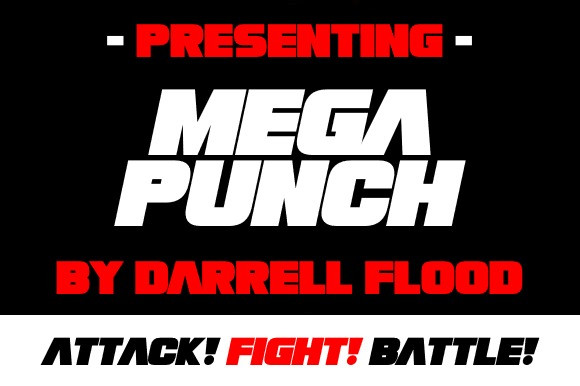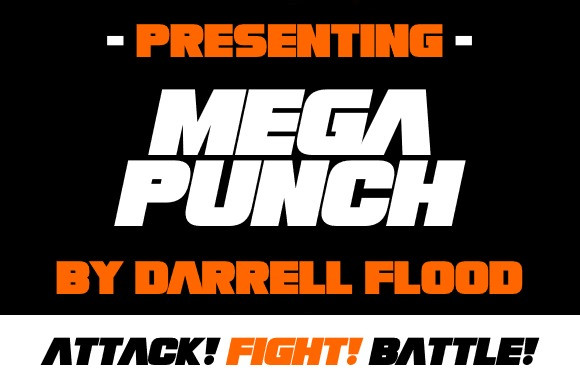
Megapunch Font
Megapunch Font, A powerful, high impact font in a, ultra-bold, tight, strong style. Perfect for epic battles, street fight themes, and general everyday title use!